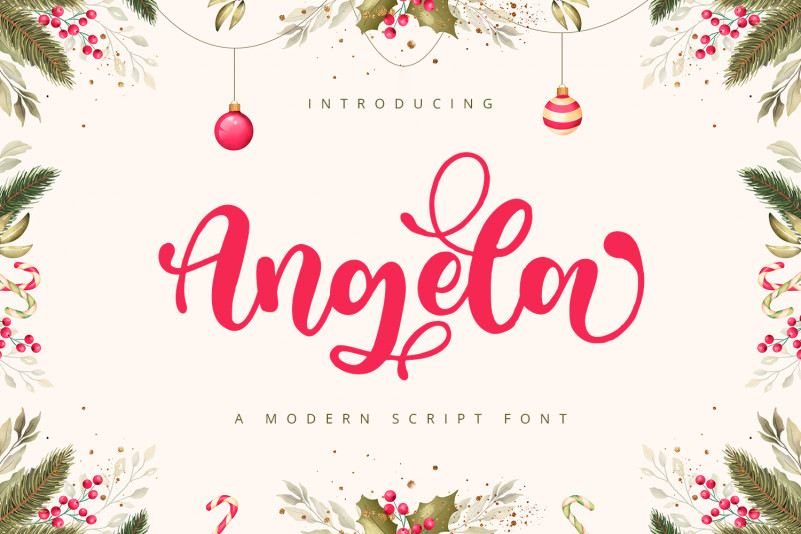
Angela Font
Angela Script Font is a handwritten script font with cute and unique style. It will be perfectly used for Branding, Logo Design, Lettering, Logotype, Clothing, Poster, magazine, packaging, posters, shopping bags, t-shirts, book covers, photography, special events and other design project.